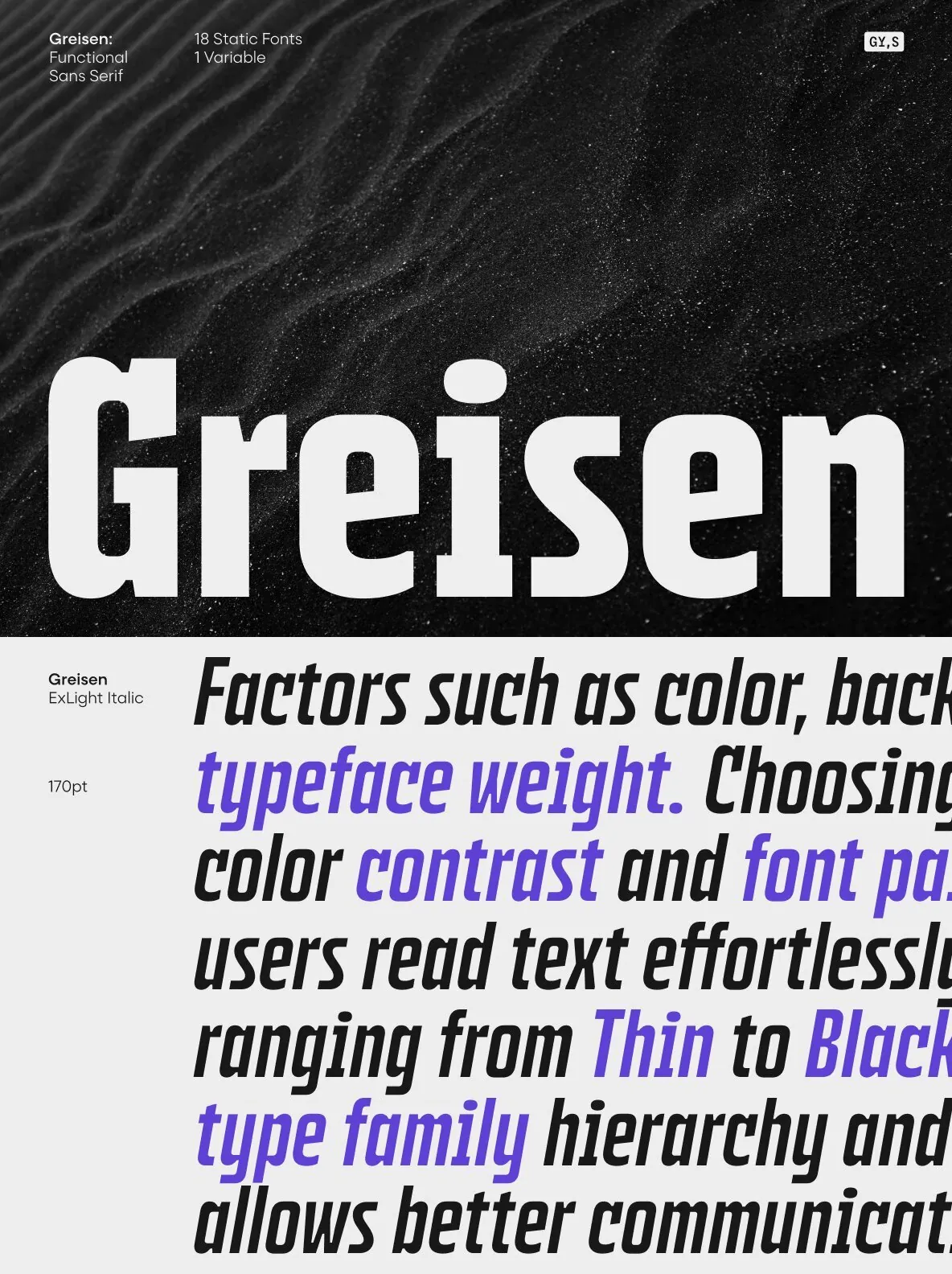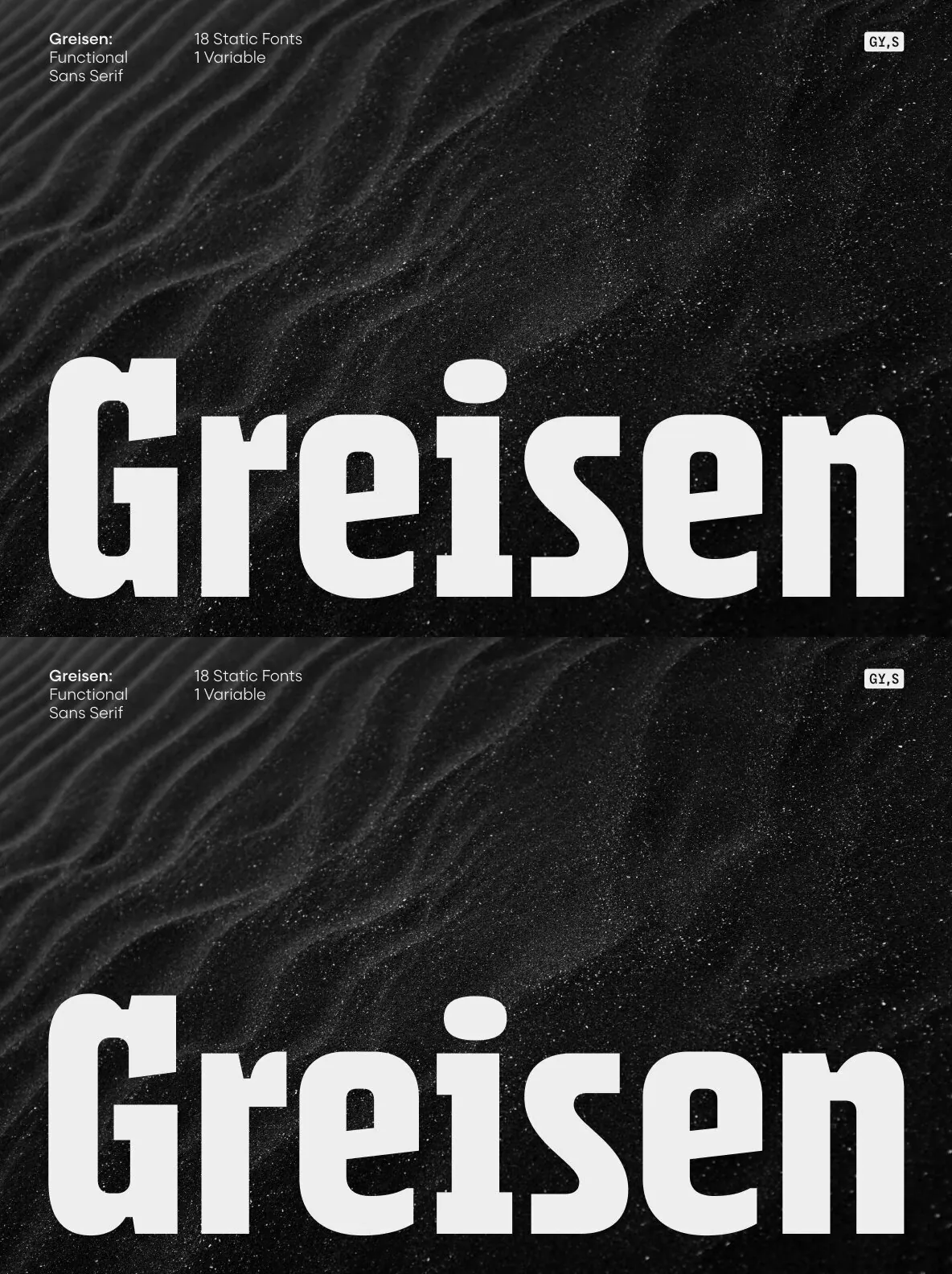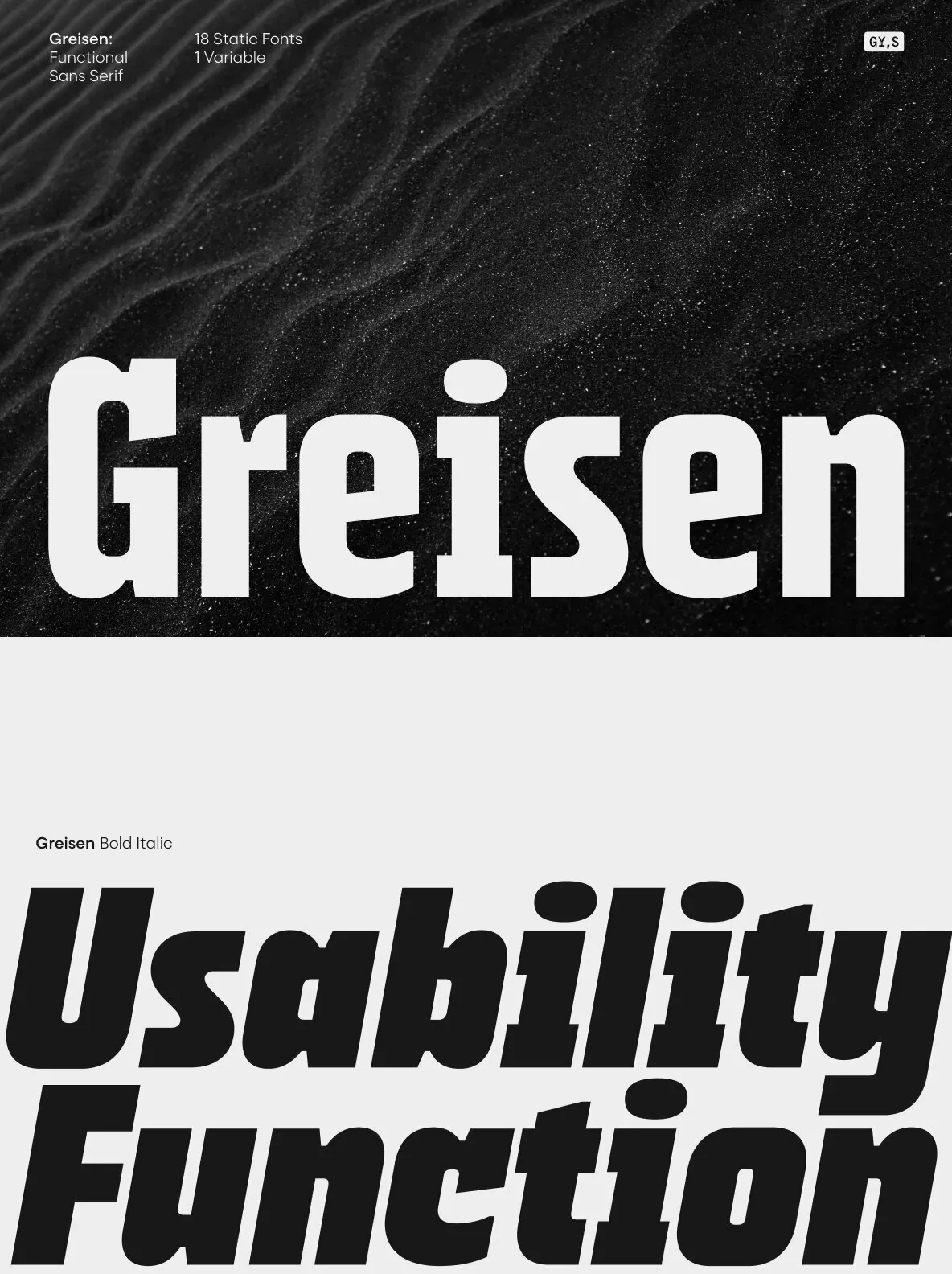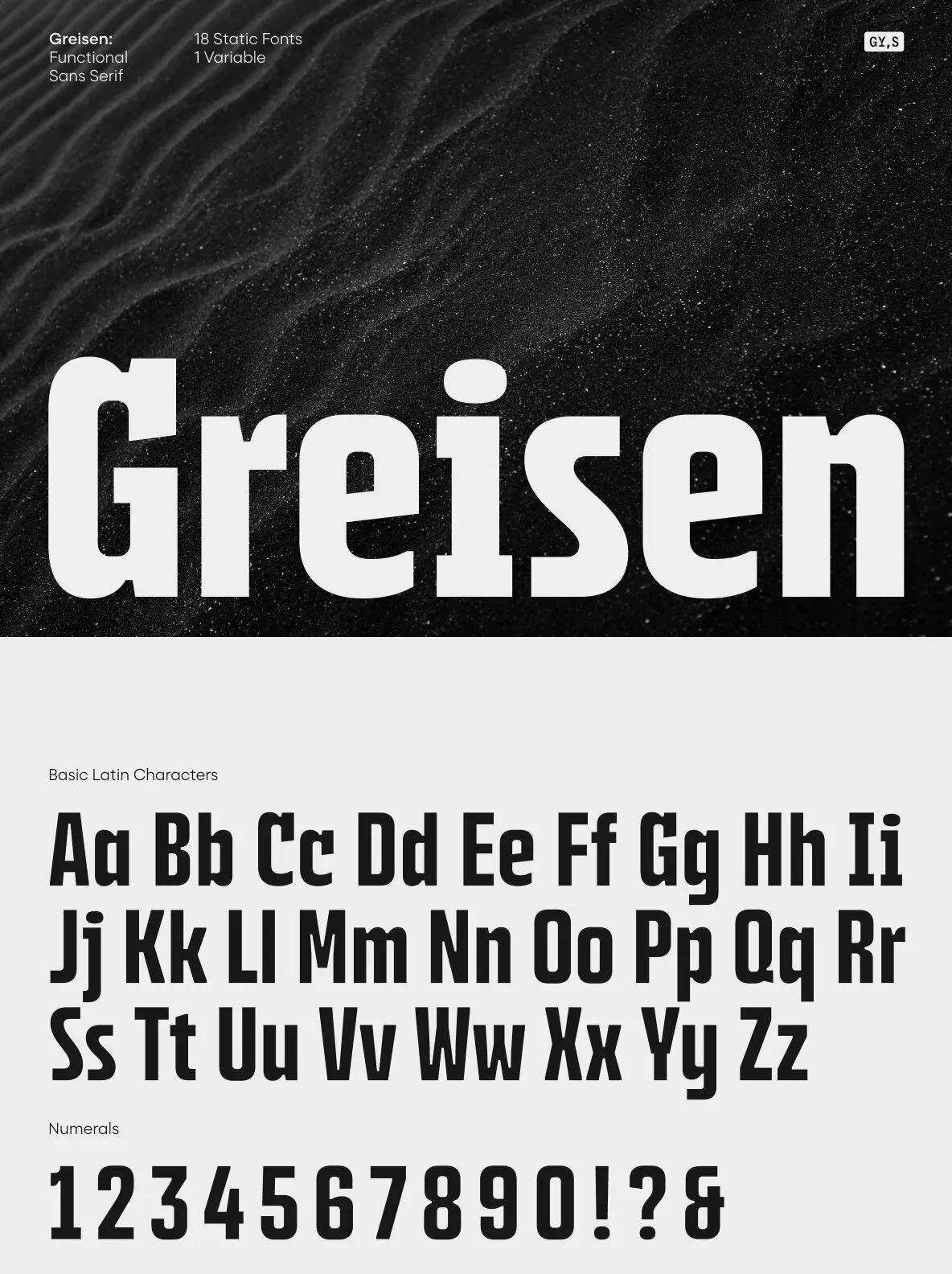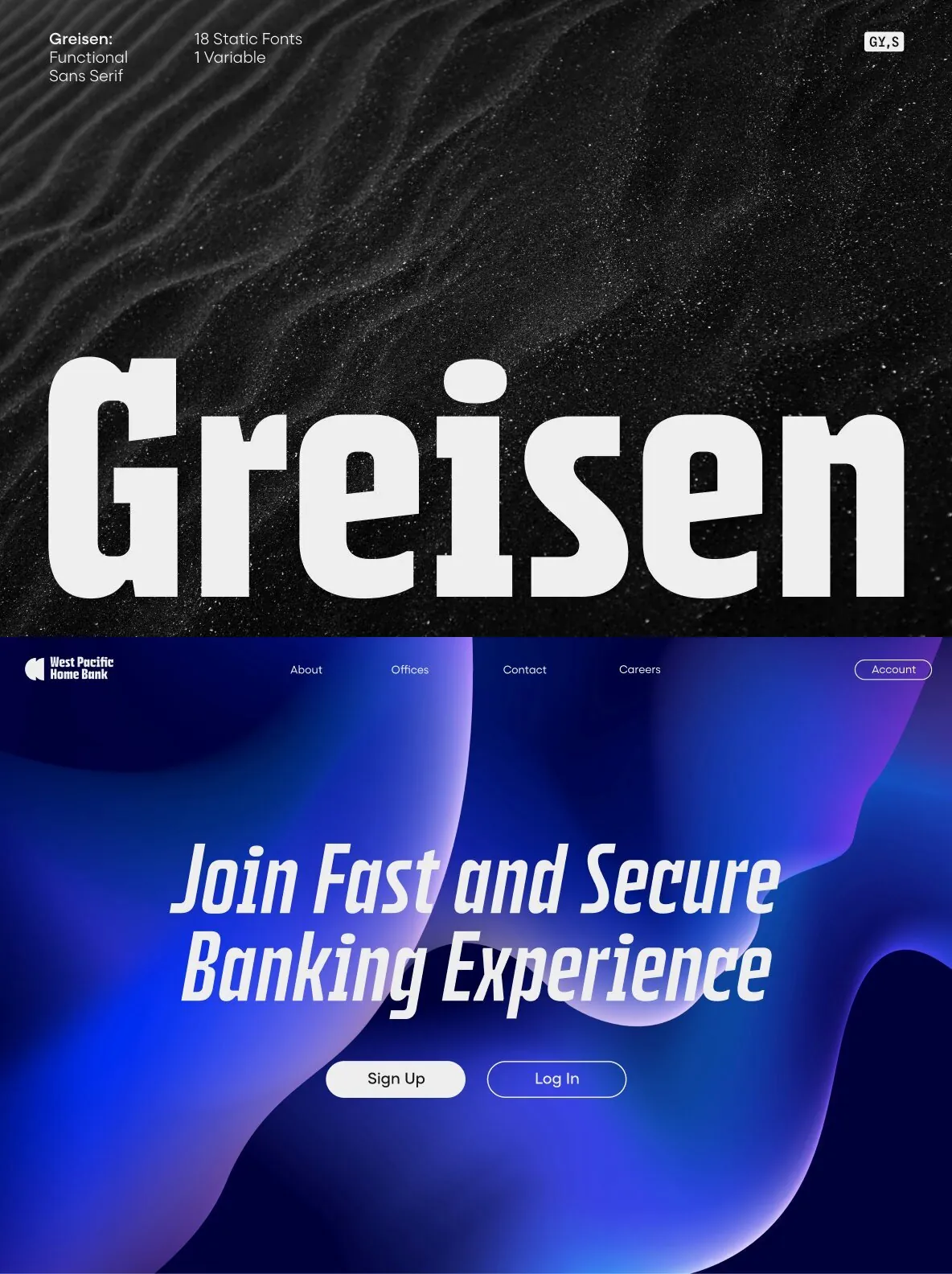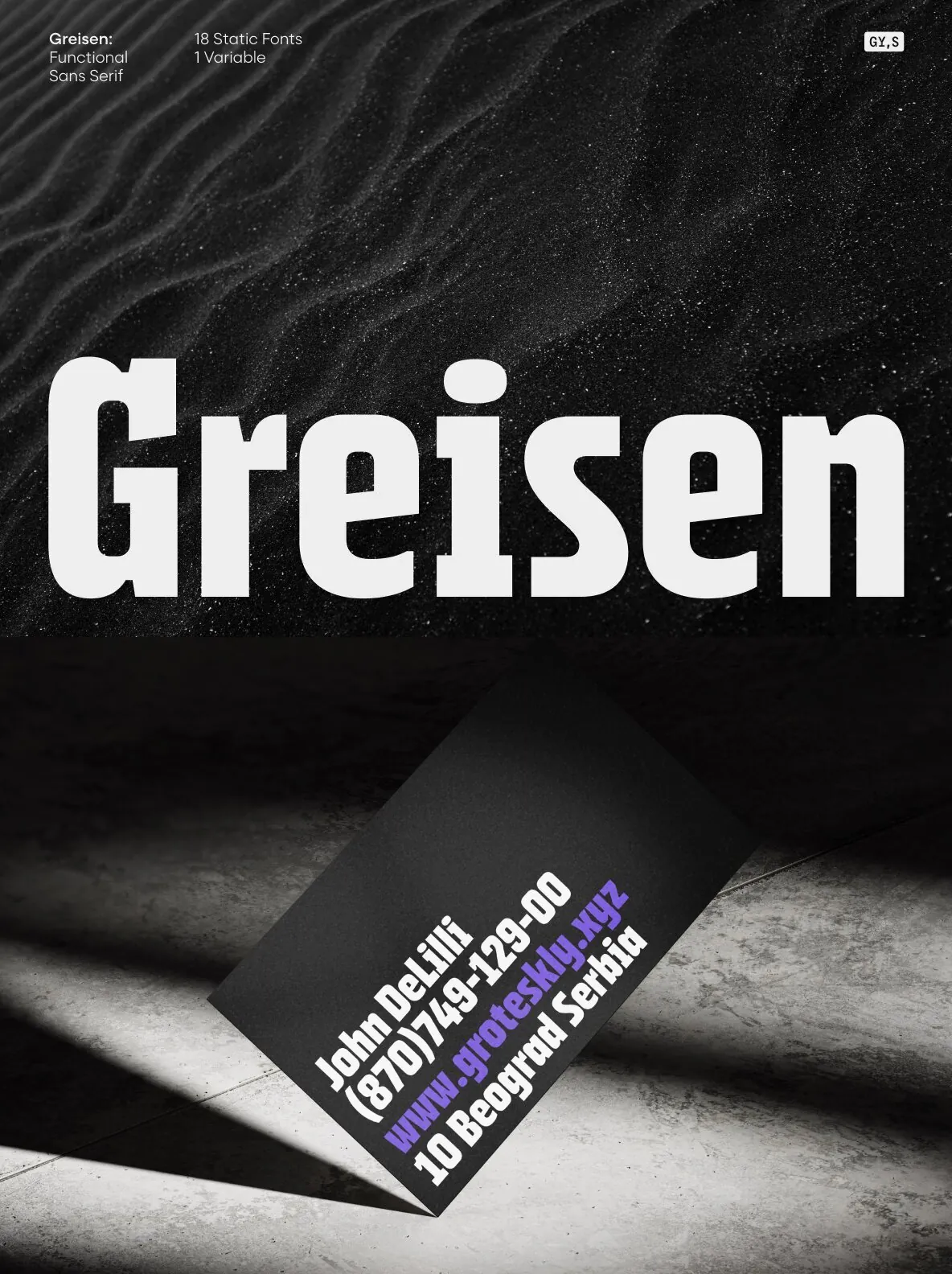
Greisen — Condensed Confidence, Forward
Introducing Greisen — a functional type family with condensed proportions and a futuristic vibe.
Greisen is a functional sans serif type family in 18 styles. Characterized by condensed proportions, legible characters, and a sturdy appearance, it adapts easily to a wide range of design projects—from web design and editorial design to packaging and branding. Greisen conveys a sense of security and reliability, making it a strong choice when you need a steadfast, trustworthy aesthetic that still feels contemporary.
Greisen spans Thin to Black, with matching italics. Its condensed proportions save space without sacrificing readability, which suits modern, space-efficient layouts. Developed to meet modern design standards, Greisen includes 600+ characters, supports 100+ languages, and offers various OpenType features such as Case Sensitive Punctuation, Fractions, Sub- And Superscript, Stylistic Alternates, and more. The italics add elegance and movement while keeping the family’s strength and stability. Greisen balances modern aesthetics and functionality, and it feels at home across many design tasks.